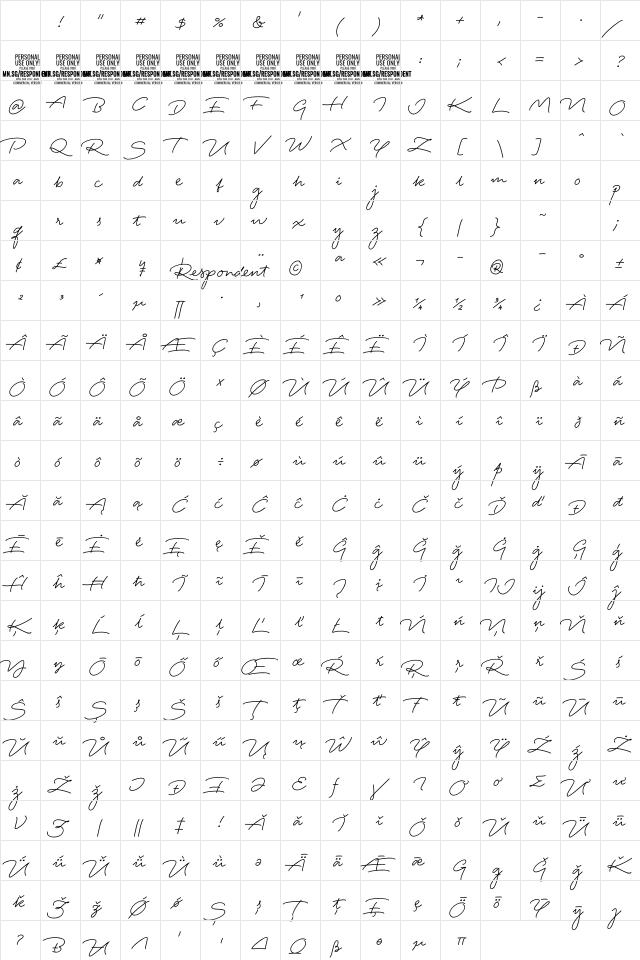
Respondent PERSONAL USE ONLY Medium PERSONAL USE ONLY is a composed and adaptable typeface that performs quietly and consistently across a wide range of design contexts.